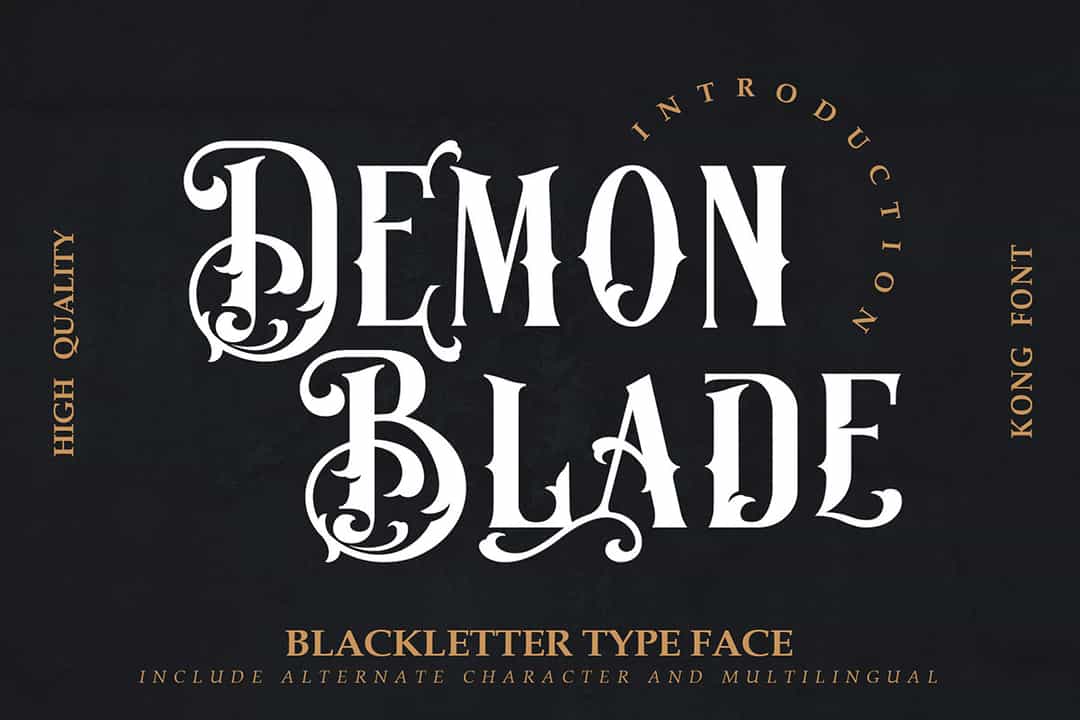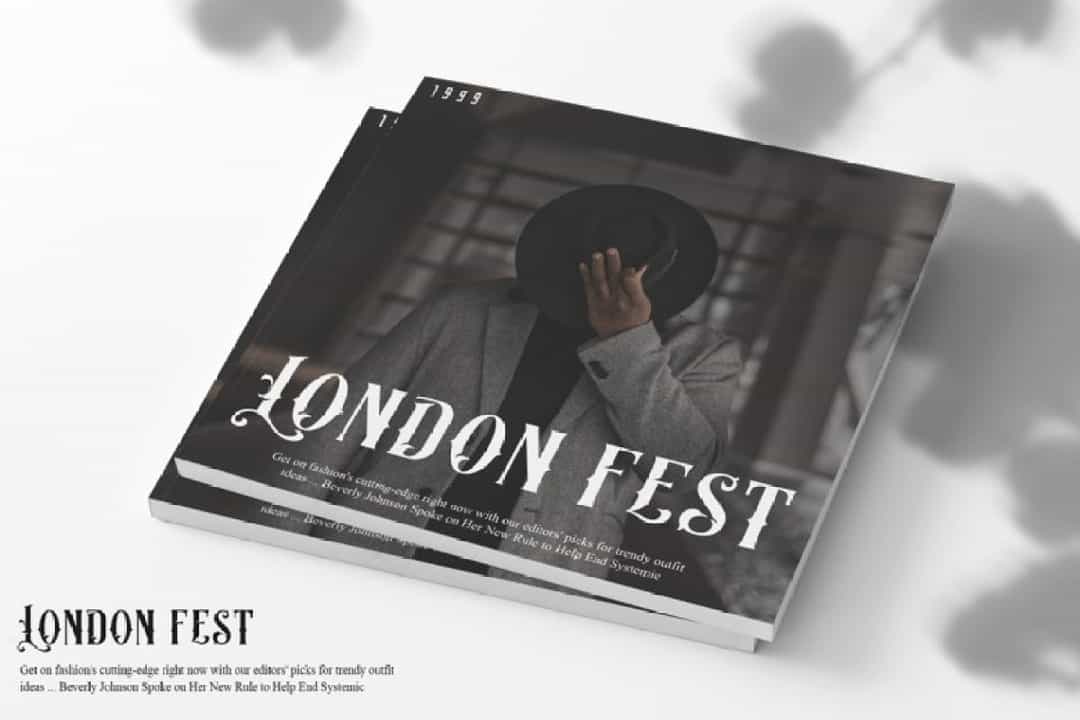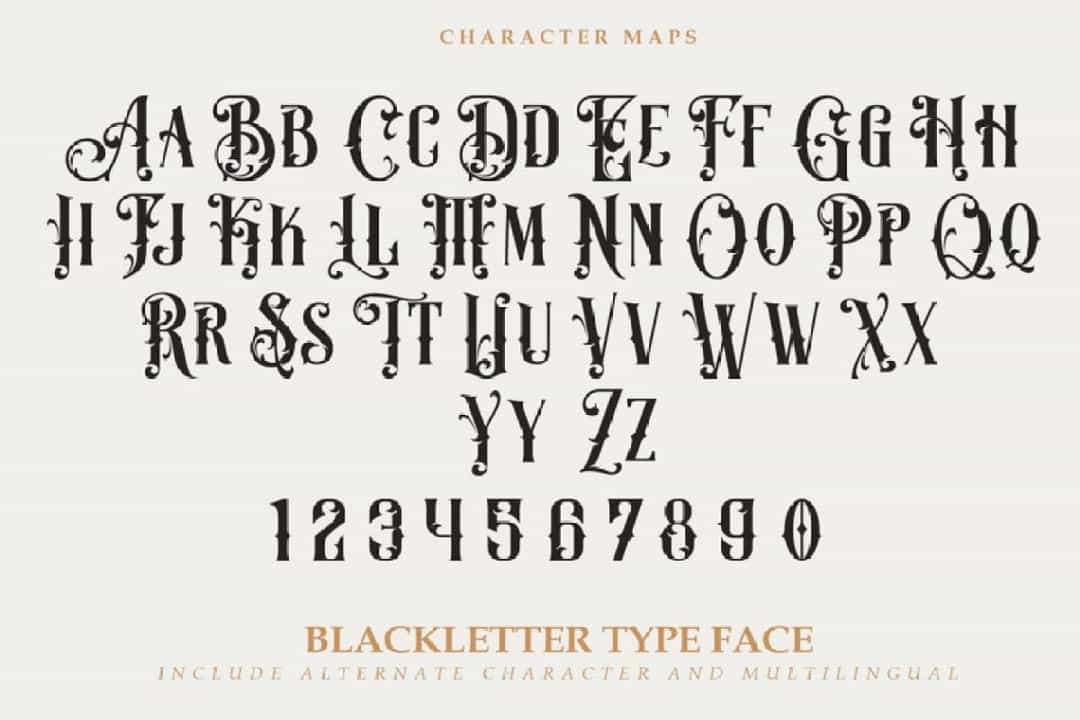
Demon Blade Font is a great set of numbers and letters that can be used for any kind of design and projects like Logotype design, Branding design, Logo design, Digital Lettering Arts (T-shirt/Apparel lettering arts), Posters (Magazine or Newspaper), Signs Advertising Design and of course branding projects. Yes it will complements the current system very well.